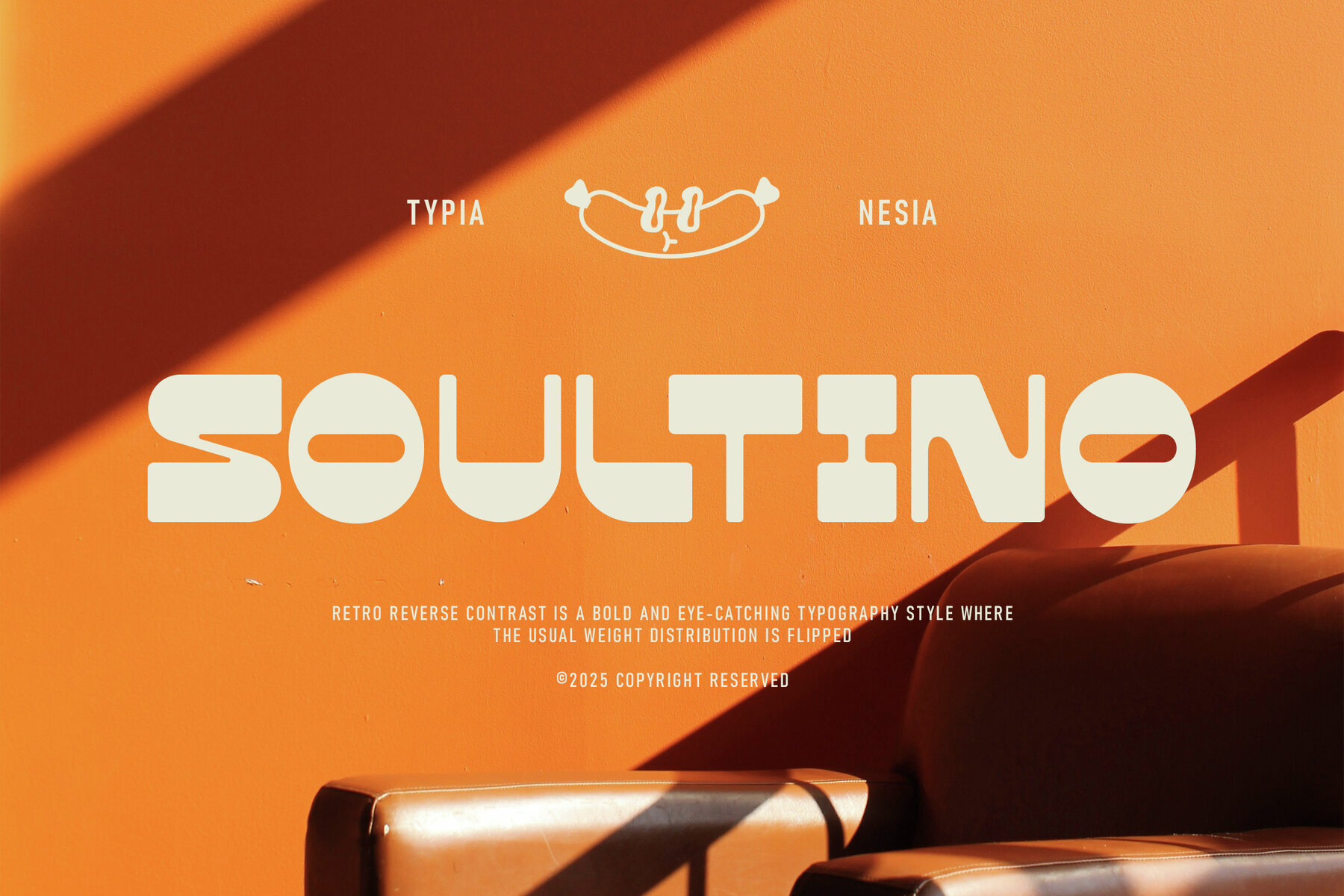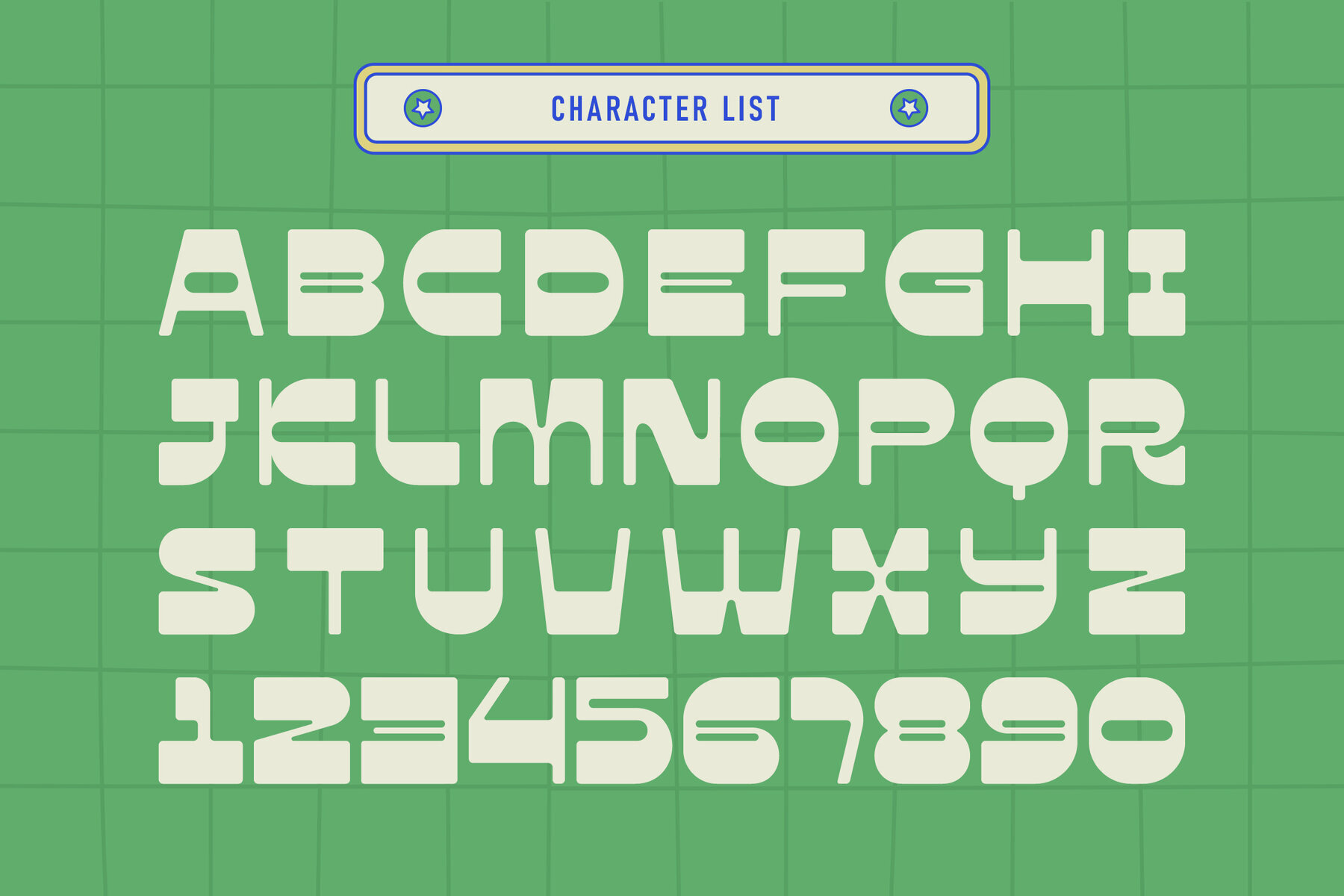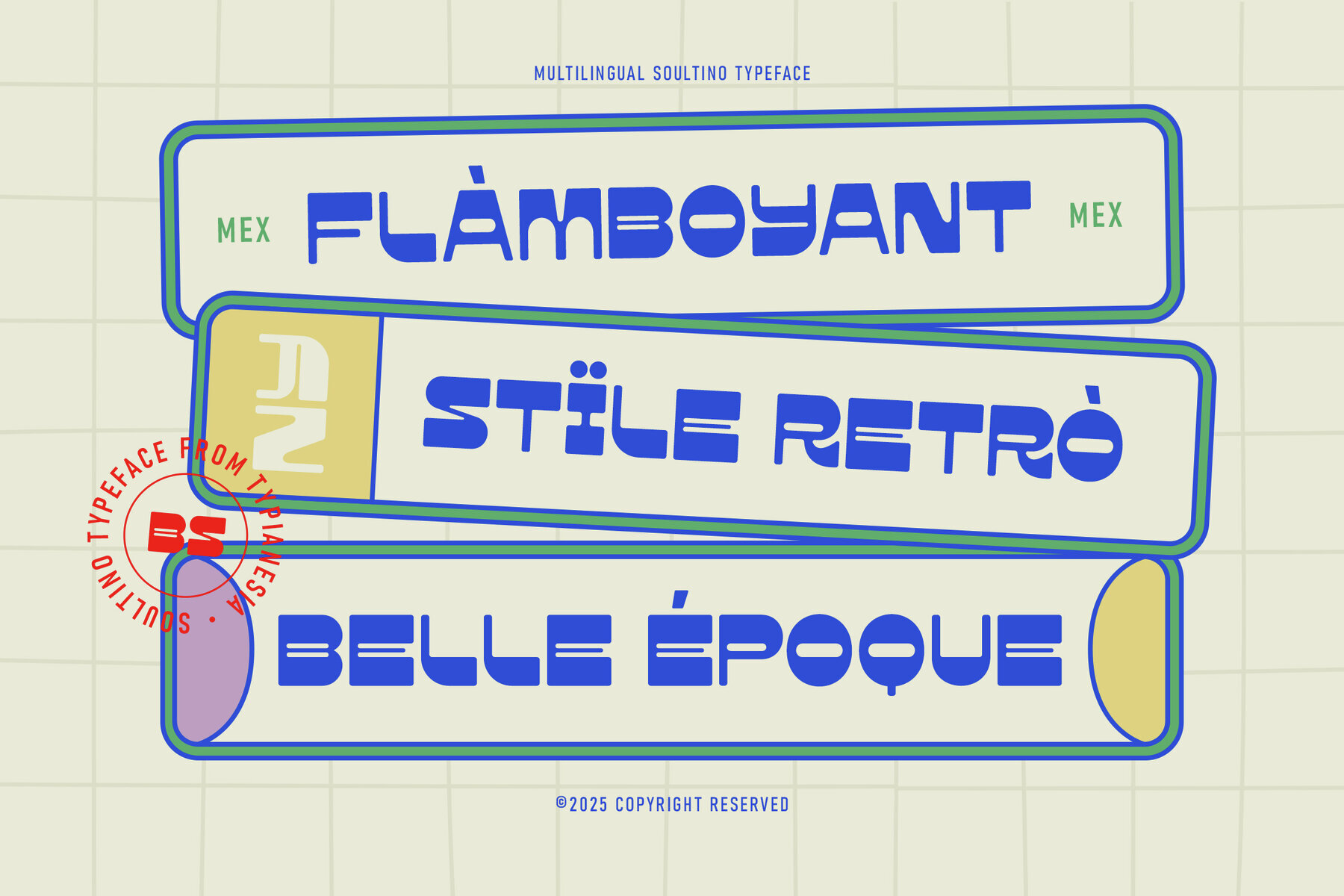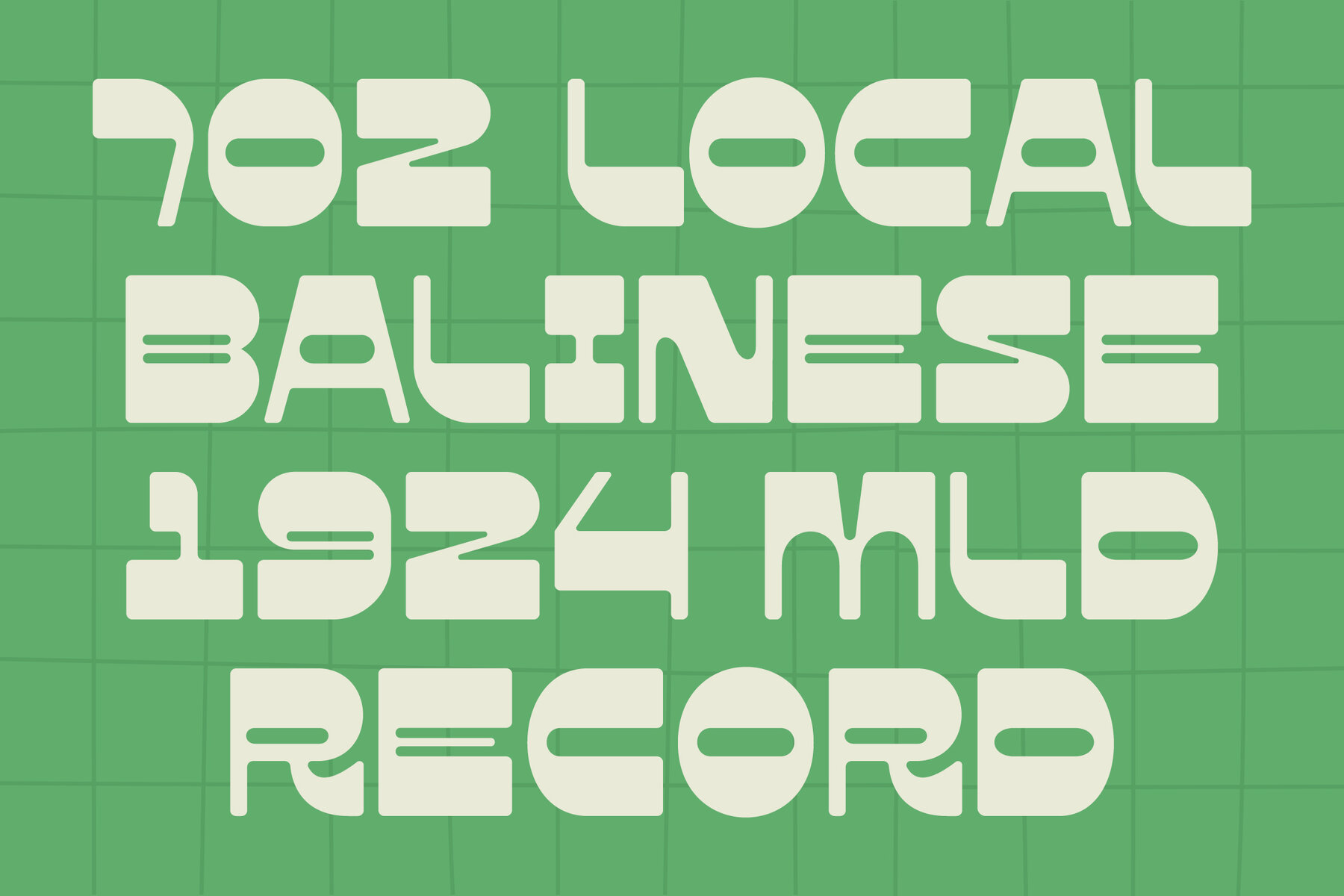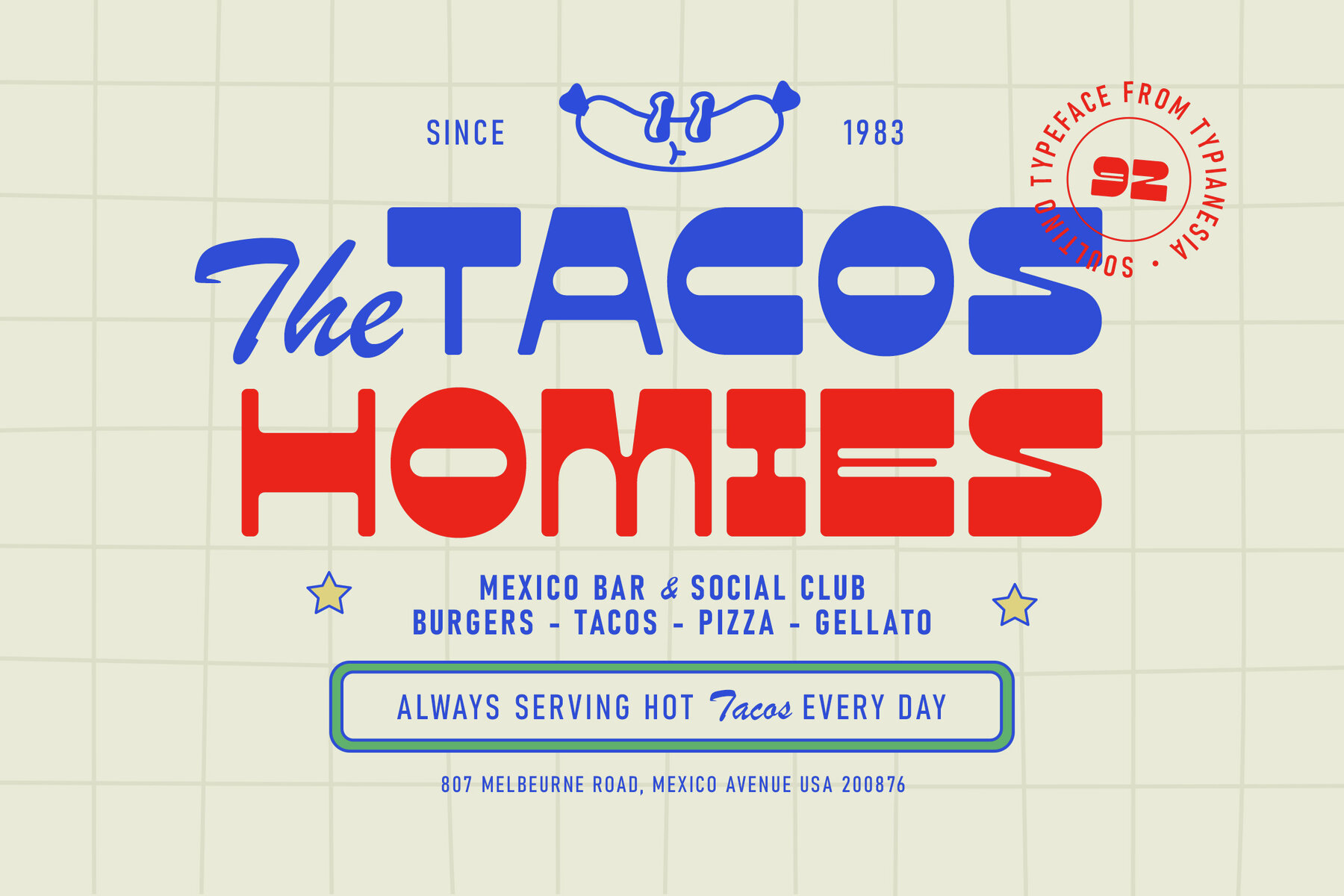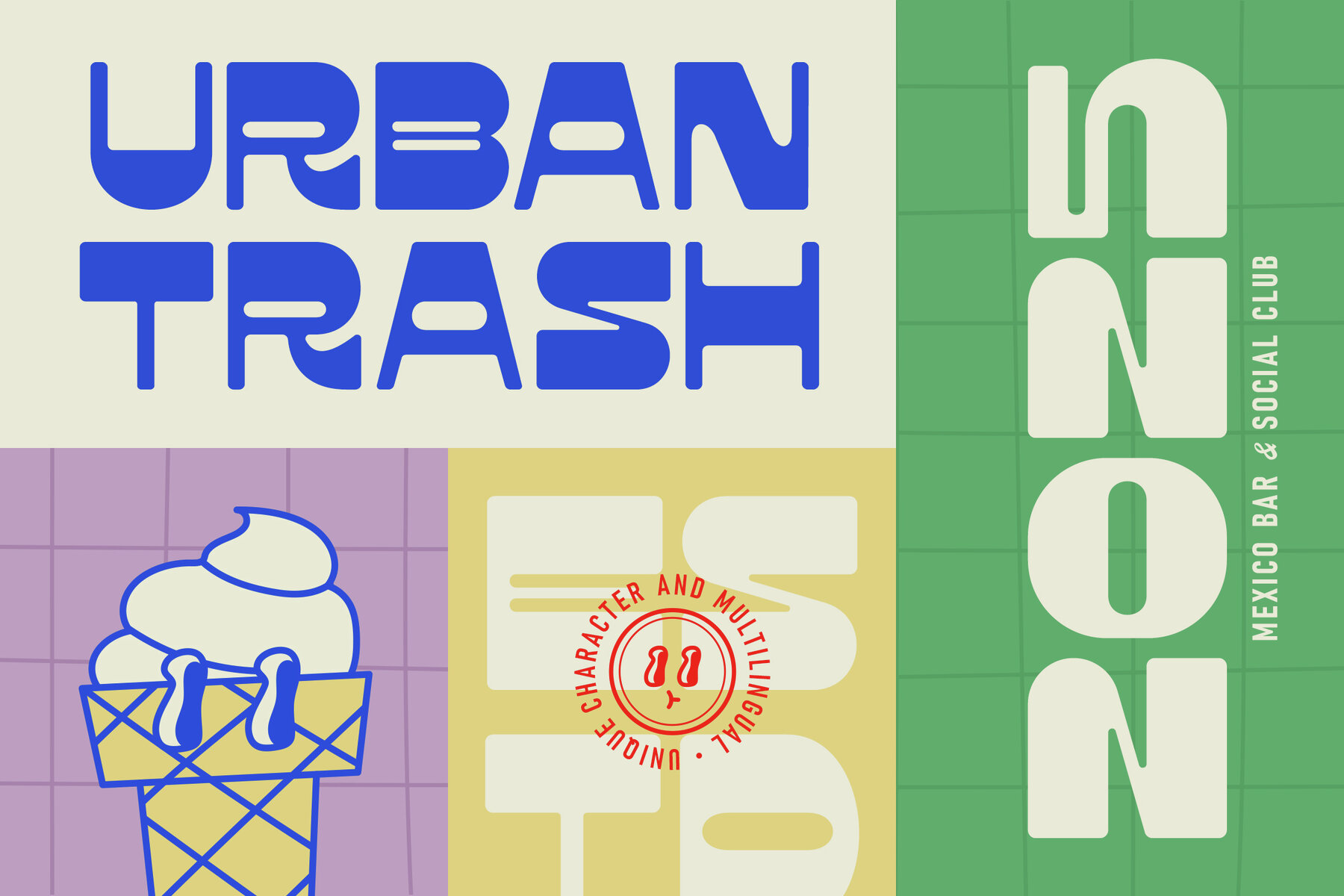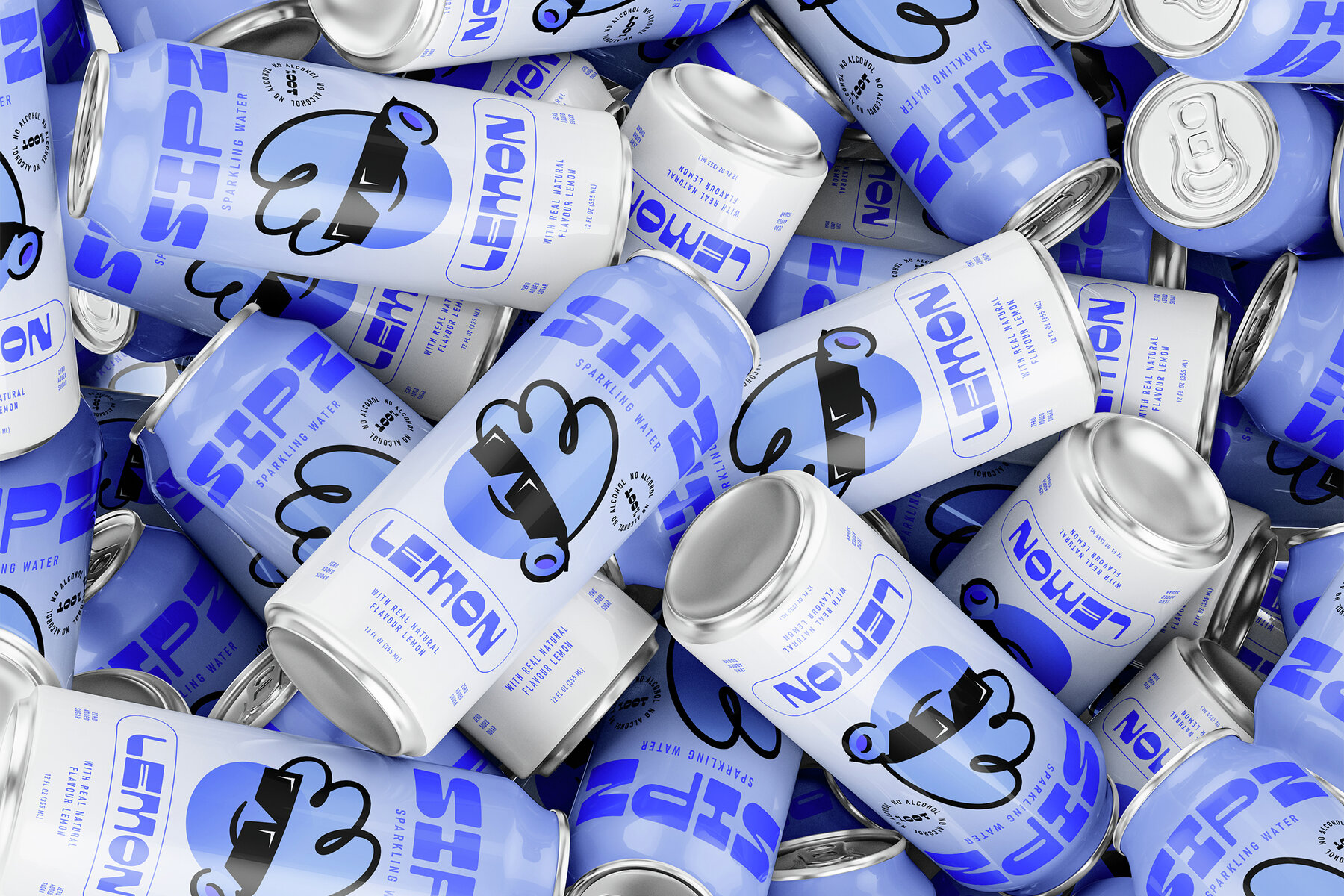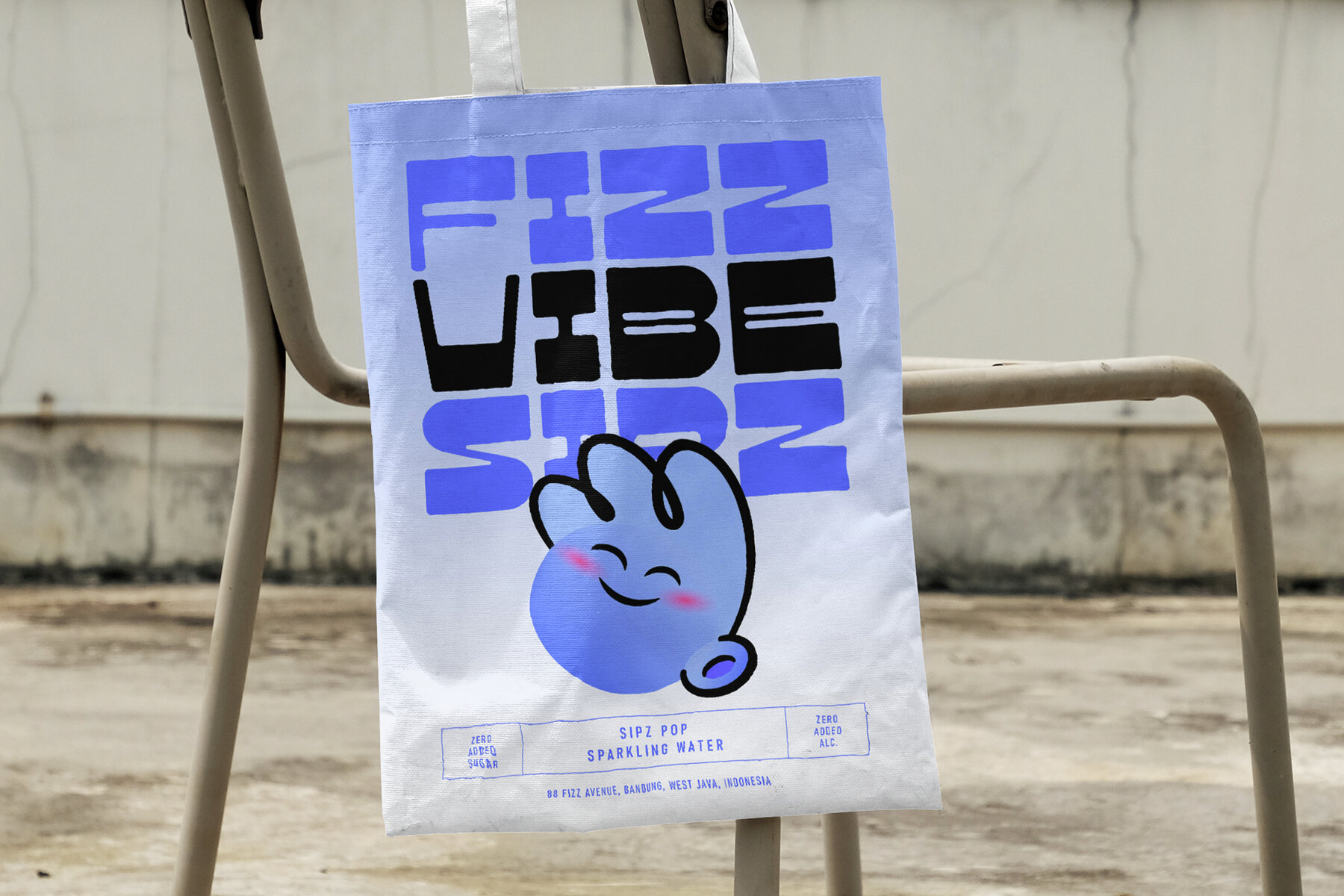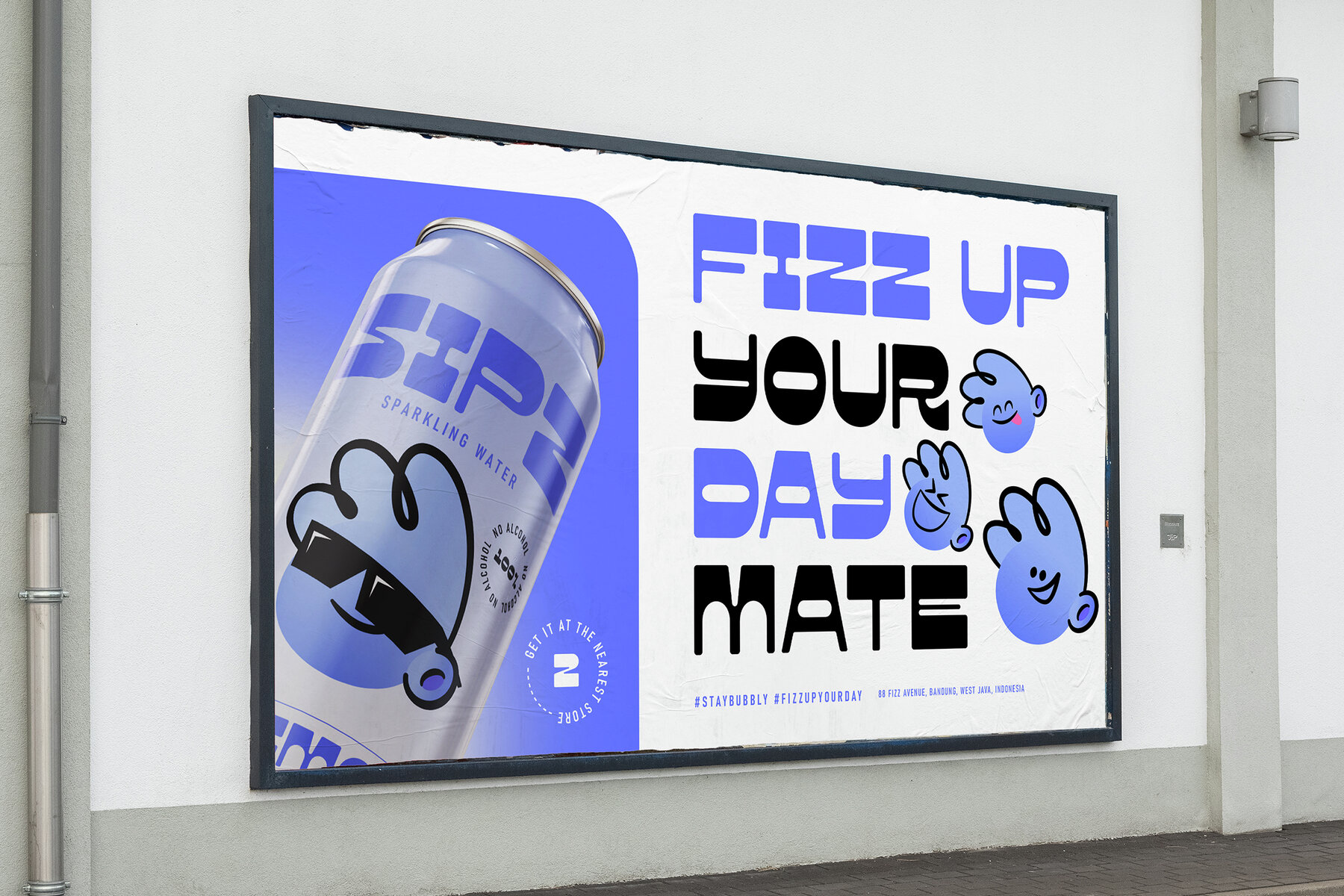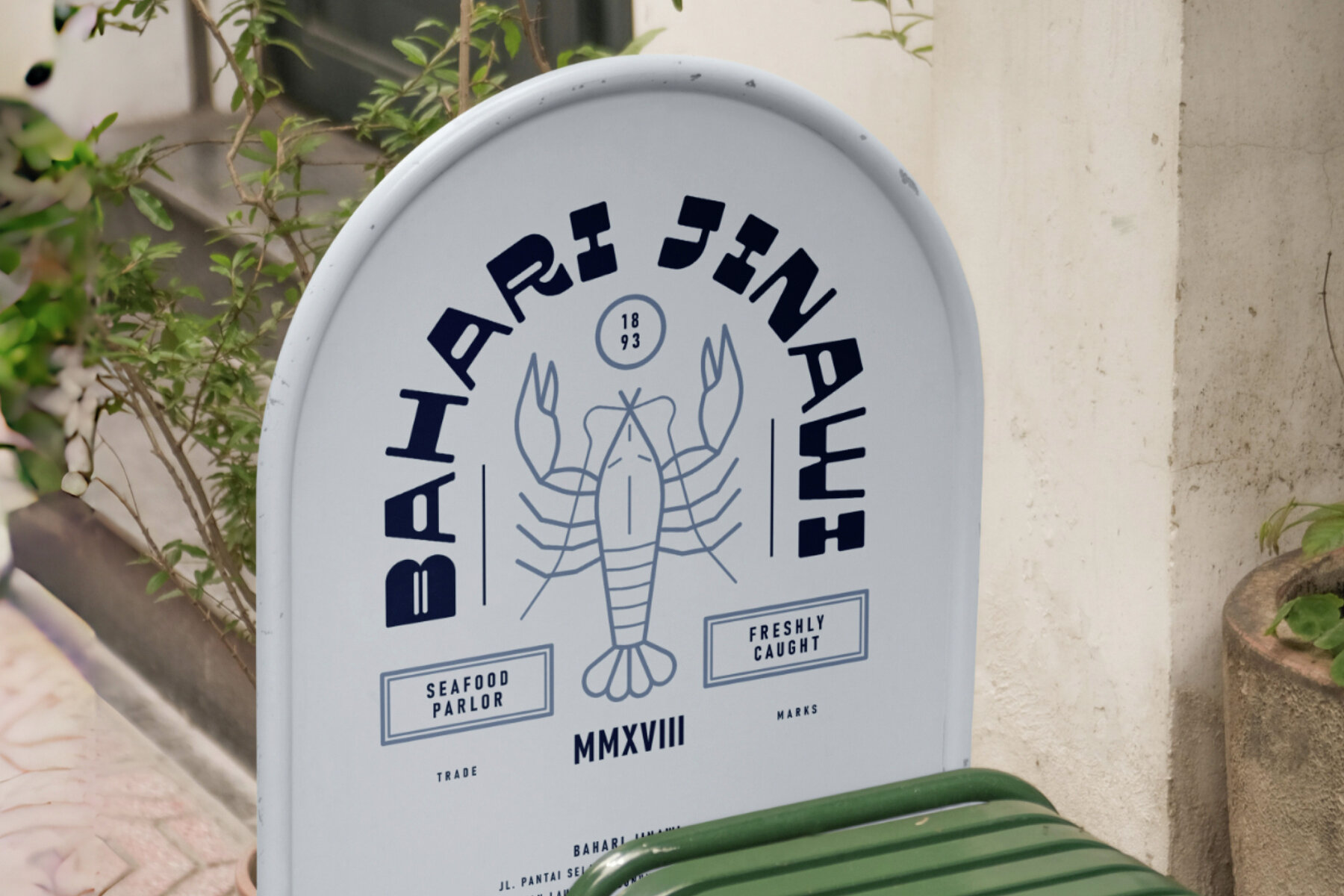
Soultino Font
Soultino Regular
Soultino is a Retro Reverse Contrast Sans Bold typeface that stands out with its unique contrast and bold character. Inspired by vintage typography, it delivers a striking and playful aesthetic, making it ideal for eye-catching designs with a nostalgic yet modern touch, such as branding, posters, signage, editorial headlines, packaging, social media, advertisements, merchandise, website headers, and any project that requires a touch of bold and retro charm. The font comes with uppercase and lowercase letters, punctuation, and numerals, ensuring full typographic functionality. Additionally, it offers multilingual support, making it suitable for diverse language applications in both print and digital designs. Designed for graphic designers, typographers, and branding experts, Soultino provides high-impact readability, a distinctive visual presence, and a vintage-inspired look, making it a versatile choice for both contemporary and classic design projects. Bring bold vintage energy to your designs with Soultino and make a statement!Soultino: Retro Reverse Contrast Sans Display Font
Multilingual Support